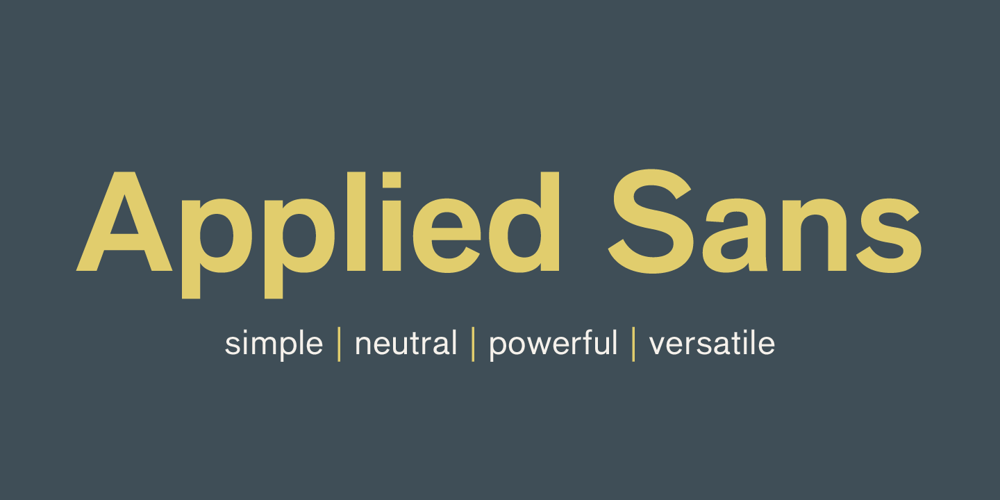
Applied Sans
Applied Sans font
Applied Sans Font Family was designed by Akira Kobayashi, Sandra Winter and published by Monotype. Applied Sans contains 32 styles and family package options. The Applied Sans™ family is a reinterpretation of the first sans serif typefaces used in what was then called, “jobbing or trade” work – typefaces like Venus and Ideal Grotesk. While built on the foundation of these late 19th and early 20th century designs, Applied Sans adds to it all the required features for modern typographic communication. The design benefits from a large x-height, open counters, generous apertures and a subtle modulation in stroke weight. These ensure character legibility and make for a design that is inviting and easy to read. Applied Sans family’s wide range, precise gradation of weights and extensive language support guarantees the design’s effectiveness in a wide and varied range of uses.